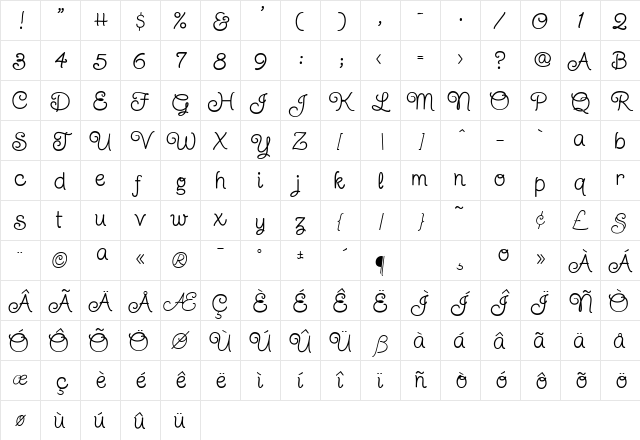
TwinkleStarROB Regular
TwinkleStarROB Family
Complete TwinkleStarROB Regular glyph index. Displaying only characters natively supported by TwinkleStarROB Regular font.
Design Context for TwinkleStarROB
TwinkleStarROB is a composed and adaptable typeface that performs quietly and consistently across a wide range of design contexts.